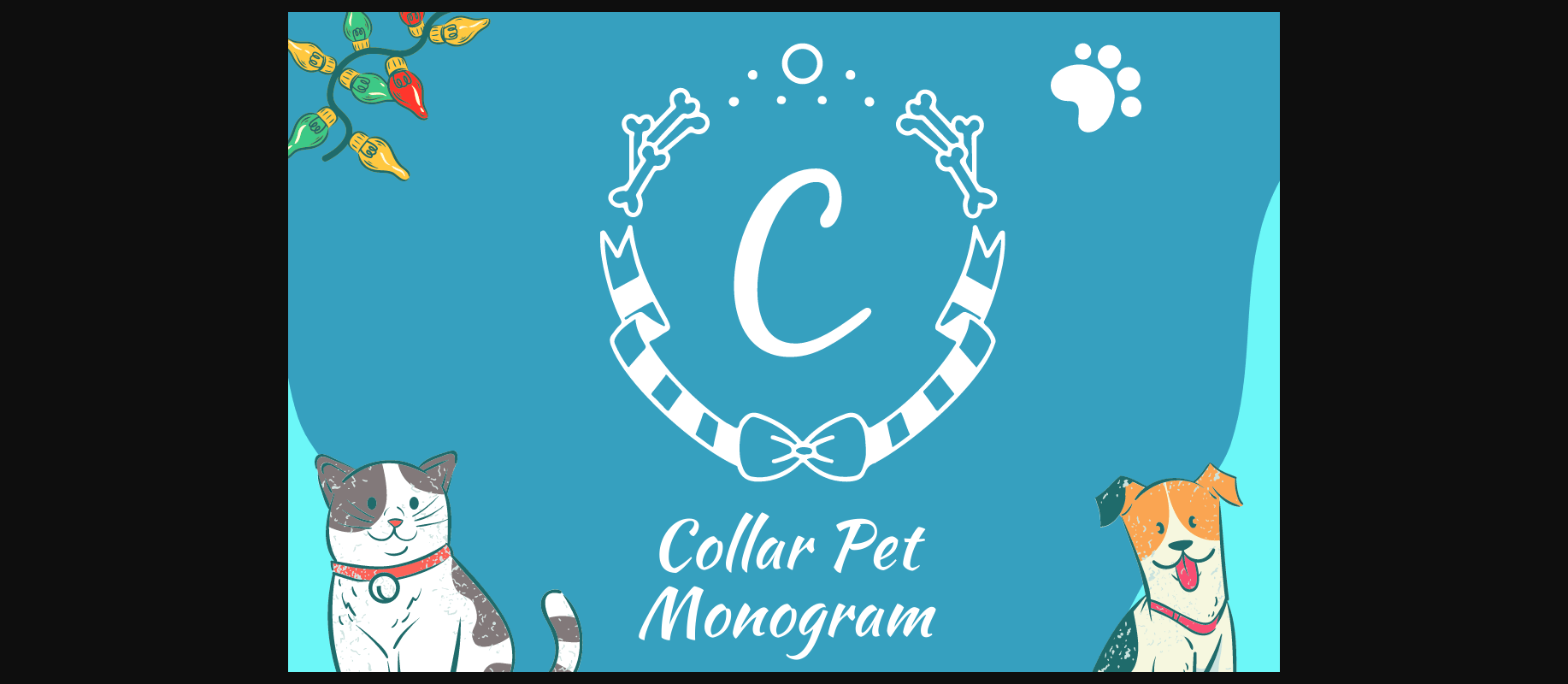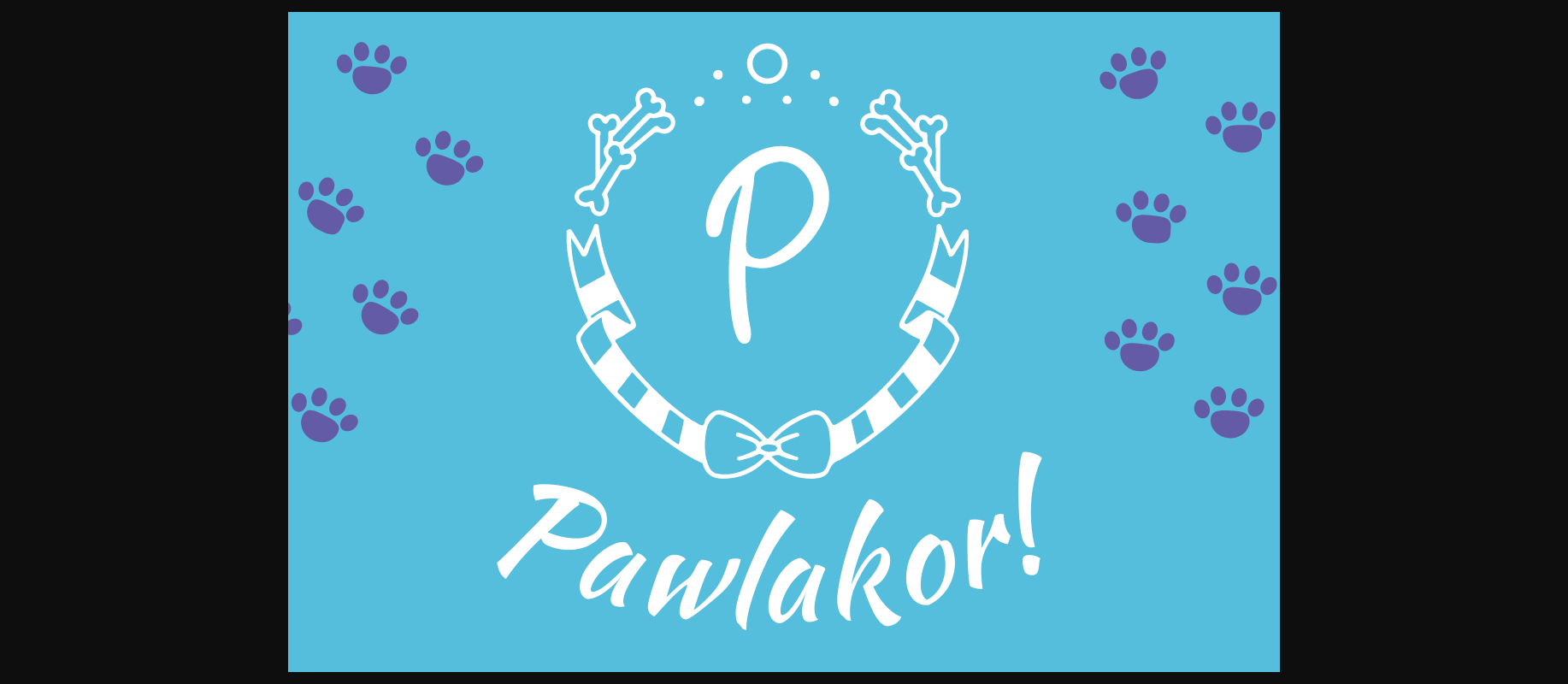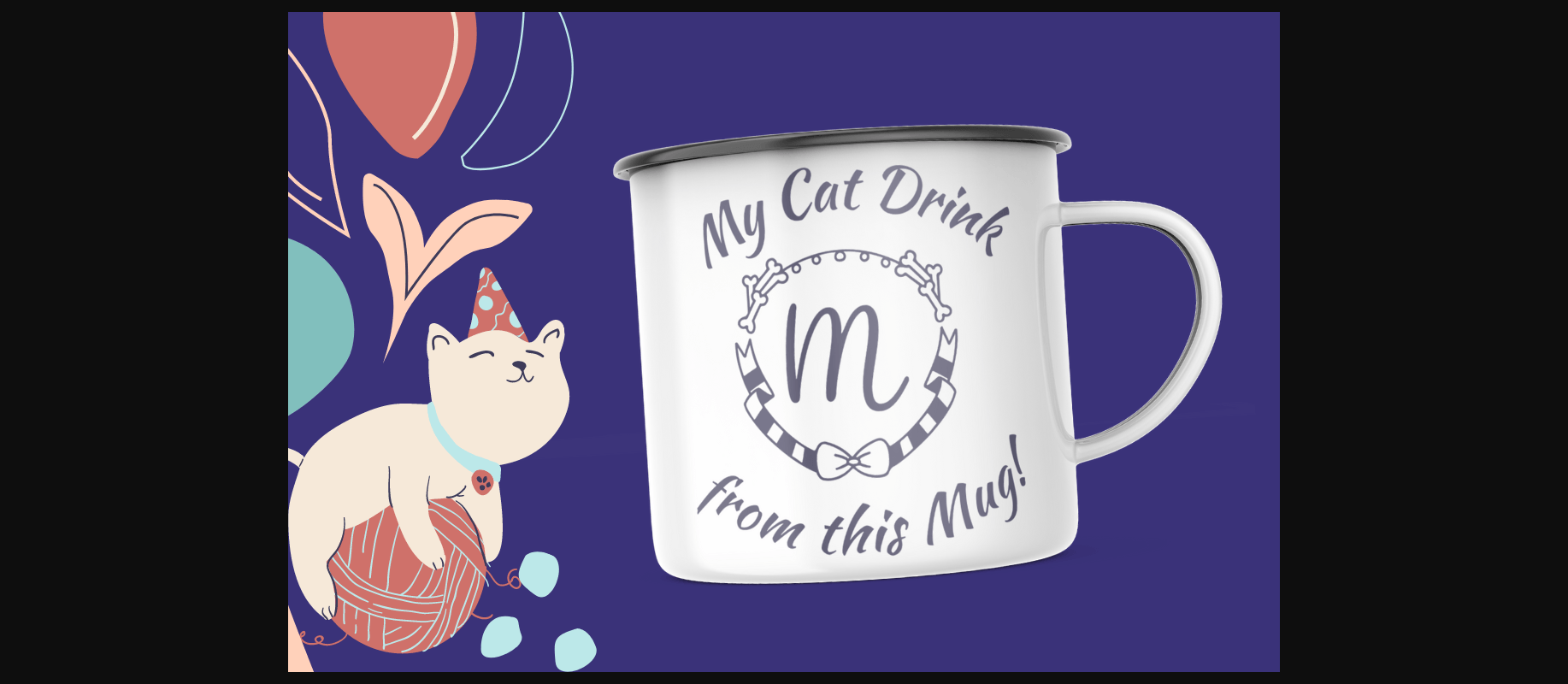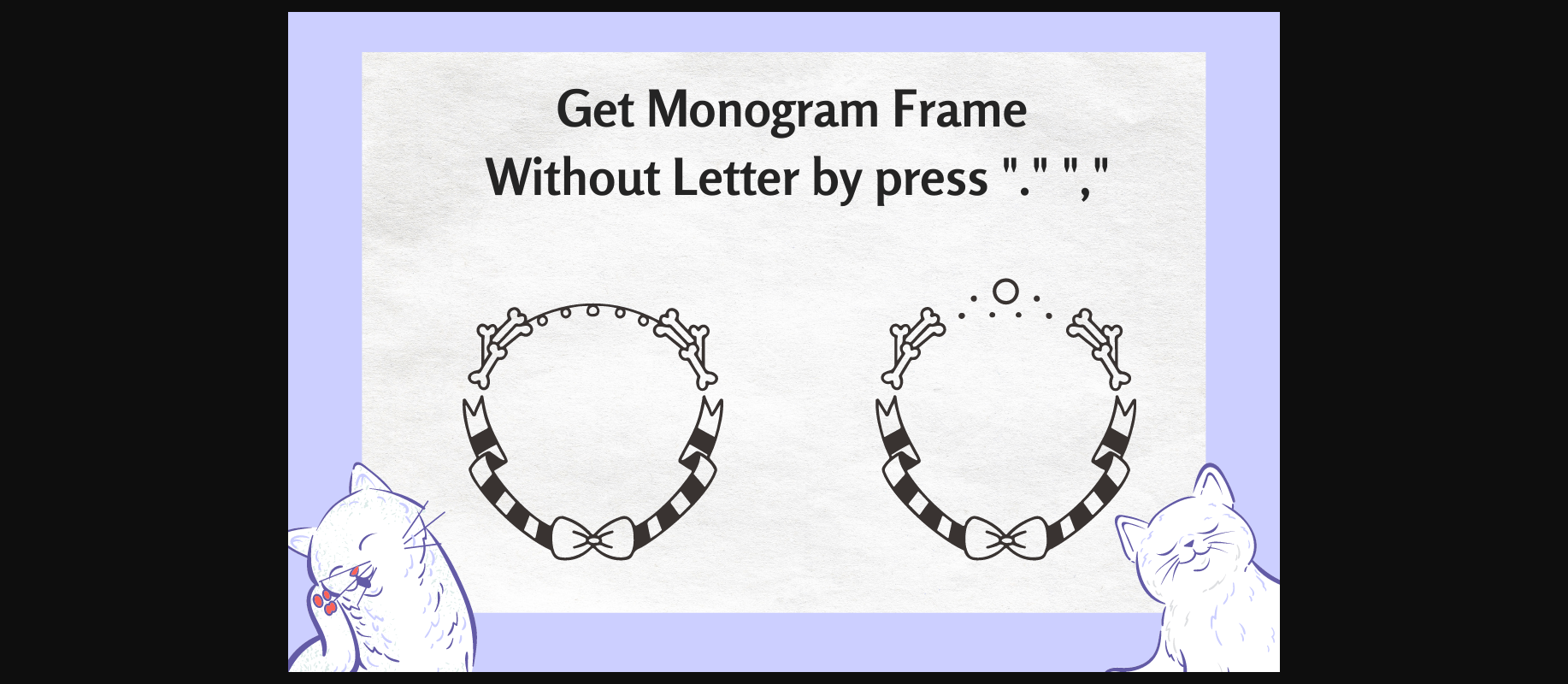
About Collar Pet Monogram Font
Collar Pet Monogram is a sweet and adorable decorative font inspired by cute cats. This font can be used to make custom projects for kids and can also help you create the perfect gift for a new homeowner, cat lover, or anyone with unending love for their pets.